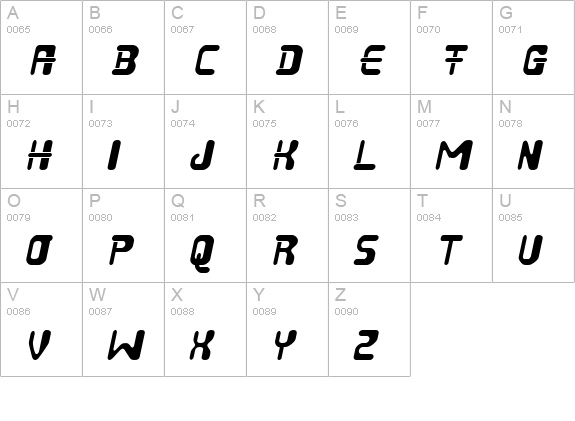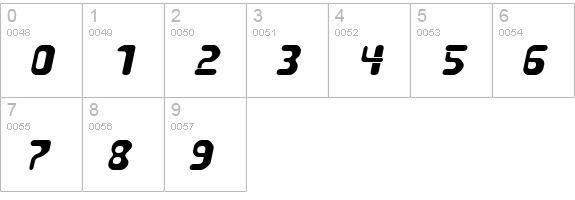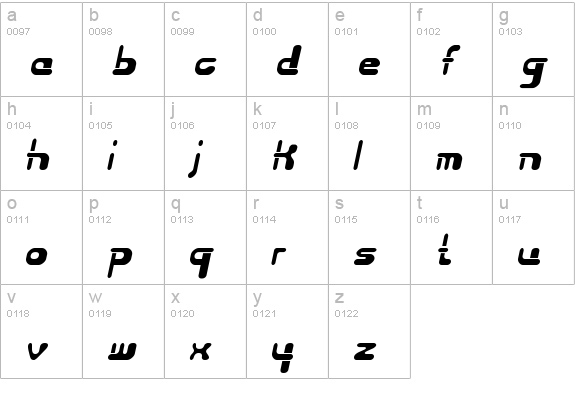
Bulgari Font Details
The Bulgari font is a stylish and elegant typeface that exudes sophistication and charm. Its sleek lines and modern design make it perfect for a wide range of projects, from branding to editorial design. With its unique character and versatility, Bulgari is sure to make a statement and leave a lasting impression. What's even better is that the Bulgari font is available for free download at FontsMarket.com. This means you can easily access this stunning font and use it in your own creative projects without any cost. Don't miss out on the opportunity to enhance your designs with the beauty of Bulgari - download it today and let your creativity shine!